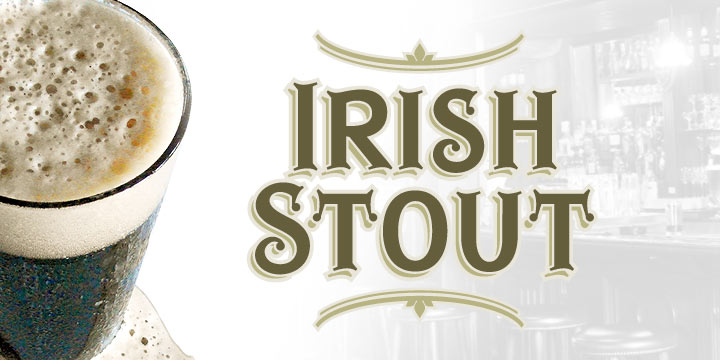
Irish Stout BB Font is perfect for Irish pubs, craft breweries, Celtic festivals, traditional taverns, beer branding, Irish restaurants, folk music venues, heritage tourism, and authentic Irish communications. This robust typeface brings Celtic strength and Irish pub atmosphere to projects requiring traditional typography with authentic Irish appeal and hearty pub character.
What makes Irish Stout BB Font exciting is its Celtic robustness that embodies the rich tradition of Irish brewing culture and pub heritage with remarkable authenticity and hearty character that evokes the warm atmosphere of traditional Irish taverns. The font features bold letterforms with Celtic strength and Irish proportions that reflect the communal spirit of pub culture and the enduring traditions of Irish hospitality. Its convivial personality and traditional nature make it irresistible for Irish brands seeking typography that communicates heritage while celebrating the authentic charm of Celtic culture and Irish community gatherings.
The Irish Stout BB Font family includes hearty weights and Celtic styles: Light, Regular, Medium, Bold, and traditional variations with Gaelic alternates and Irish symbols. Each weight maintains the font's robust character while offering designers authentic flexibility for Irish branding and Celtic design applications requiring traditional presentation and pub atmosphere.
Whether you're designing for breweries or Irish establishments, Irish Stout BB Font Free Download provides designers with a hearty, tradition-focused typeface solution. The font's Celtic aesthetics and pub styling make it ideal for craft breweries, Irish restaurants, Celtic music venues, and heritage organizations. Its welcoming presence ensures your message communicates Irish authenticity and traditional hospitality while maintaining excellent pub readability. The comprehensive character set includes Celtic symbols and Irish decorations, making it perfect for creating memorable headlines and brand identities that celebrate Irish brewing heritage and establish meaningful connections with audiences seeking authentic Celtic experiences and traditional Irish pub culture.